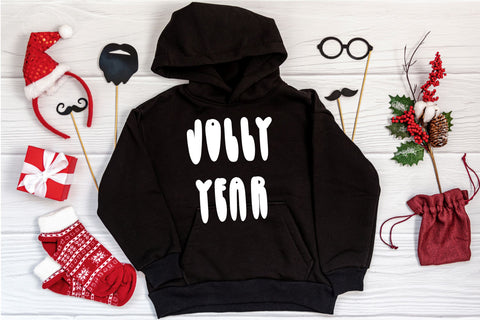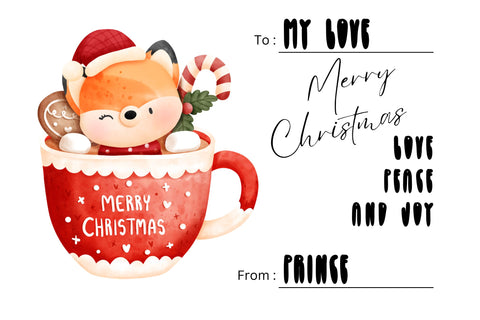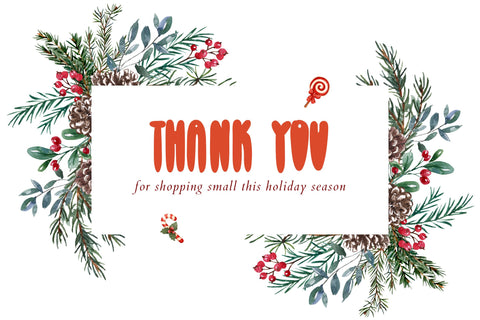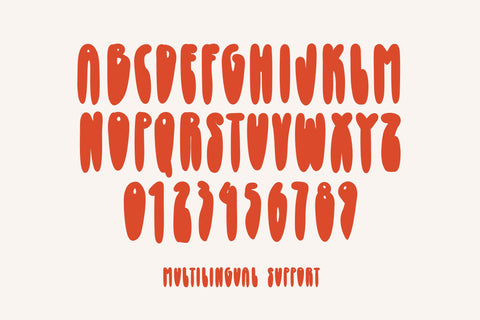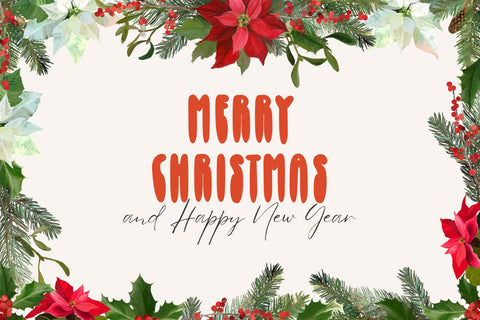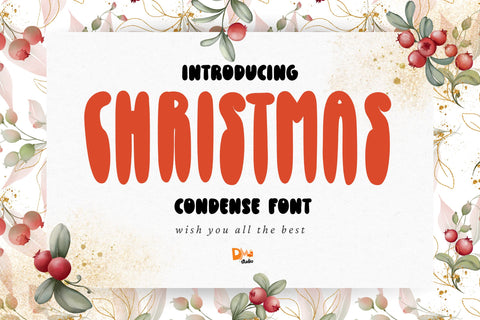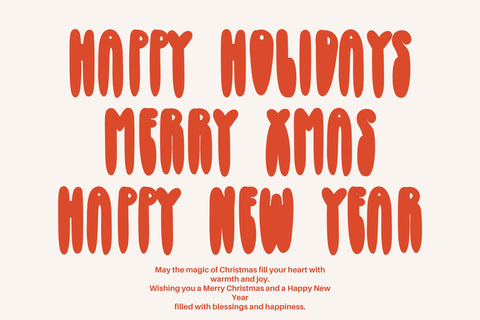
Chirstmas Condense Font
Introducing Christmas Condense Font – a festive and elegant typeface designed to bring the holiday spirit into your creative projects! This condensed font is perfect for Christmas cards, seasonal invitations, holiday packaging, and cozy winter-themed designs. Its sleek and tall letterforms make it versatile for various design needs while maintaining a cheerful and festive vibe. Add a touch of holiday magic with this beautifully crafted font!
- Festive and Elegant Design: Captures the joy and warmth of the Christmas season.
- Condensed Letterforms: Sleek and tall design, perfect for space-saving layouts.
- Versatile Application: Ideal for Christmas cards, invitations, gift tags, banners, packaging, and more.
- Complete Character Set: Includes uppercase, lowercase, numbers, punctuation, and special characters.